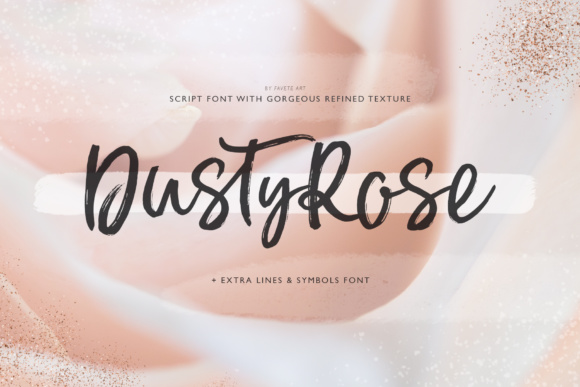
Prepare to be captivated by Dusty Rose, the enchanting script font that will transform your designs into a symphony of elegance and creativity. Created by the visionary artists at Favete Art, this font exudes an energetic spirit that dances across the page, leaving a trail of refined hand-drawn texture in its wake. Be it a small, intimate message or a grand, sweeping statement, Dusty Rose adapts effortlessly, gracing your creations with its timeless charm.
Unleash the boundless possibilities of Dusty Rose and immerse yourself in a world of endless expression. Explore the font's three distinct sets of lowercase letters, each with its own unique personality, allowing you to mimic handwriting with unparalleled authenticity. From delicate, flowing strokes to bold, confident lines, Dusty Rose dances across the digital canvas, embodying the essence of femininity, freedom, and boldness.
Embrace the organic, yet meticulously clean texture of Dusty Rose, a font that defies convention and captivates the senses. Its carefully crafted curves and edges blend seamlessly, creating a visual masterpiece that transcends the ordinary. Whether you're crafting a heartfelt letter, designing a captivating logo, or weaving a captivating story, Dusty Rose will elevate your creations to new heights of sophistication.
Join the legions of designers, artists, and creatives who have succumbed to the allure of Dusty Rose. Let your imagination soar as you harness the power of this font to craft designs that resonate with your audience. From heartfelt invitations to awe-inspiring posters, Dusty Rose will transform your vision into a tangible reality, leaving a lasting impression that lingers in the minds of all who encounter it.